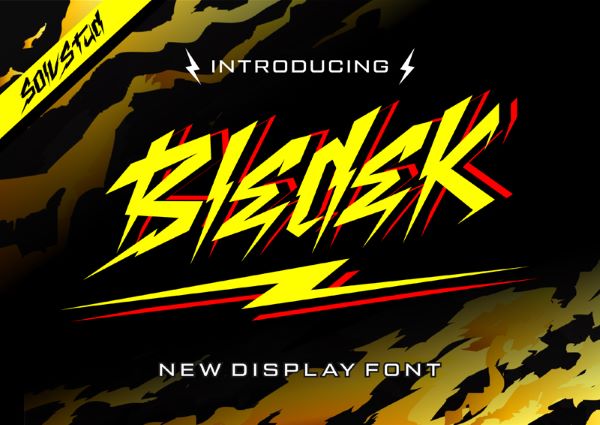
Bledek Font
Bledek Font is a Display Font by Solv Vast constructed entirely from bolts of lightning — a one-of-a-kind character design so loaded with sharp, electrifying detail that it works equally well as a death metal font, a superhero comic title, or a high-voltage music poster. Its uniqueness is the whole point: there is simply nothing else quite like it.